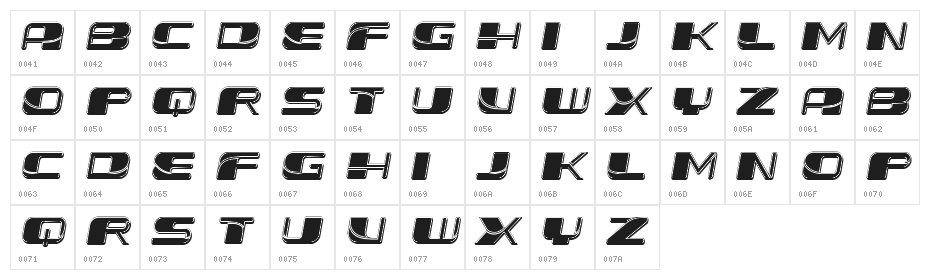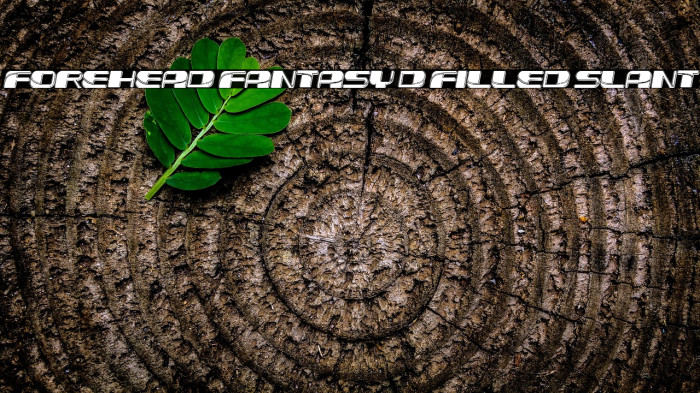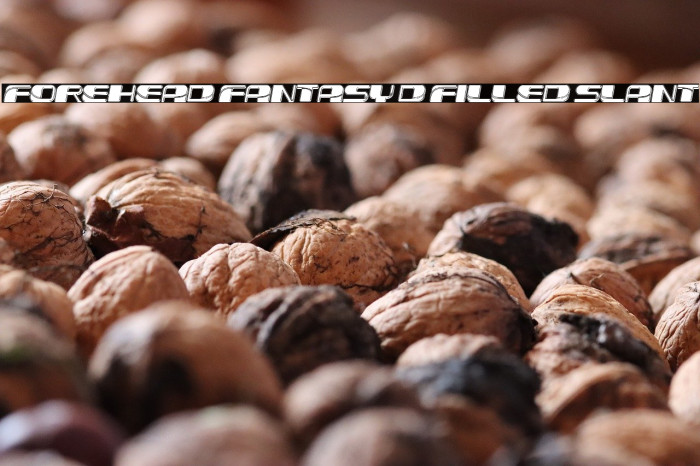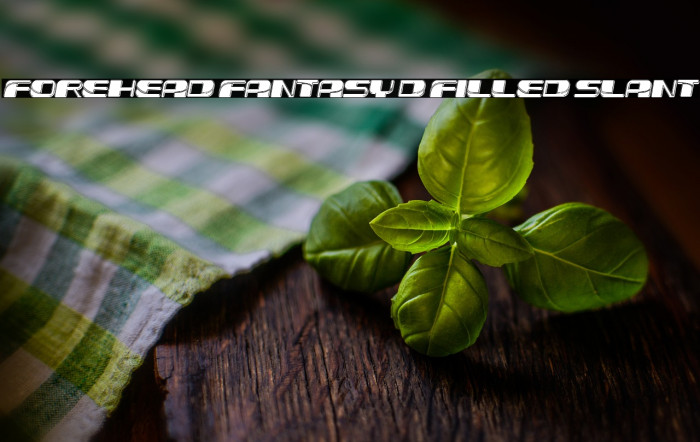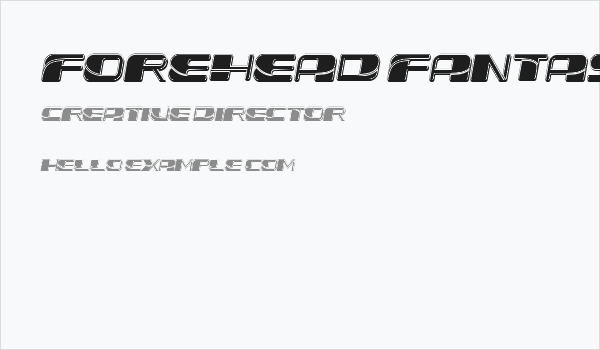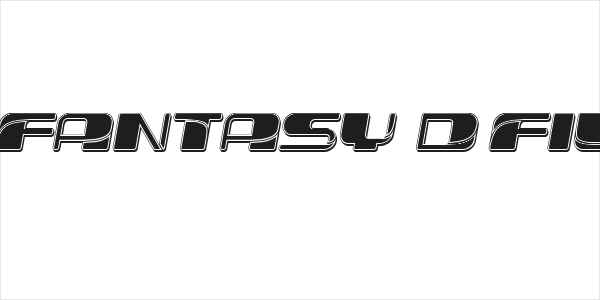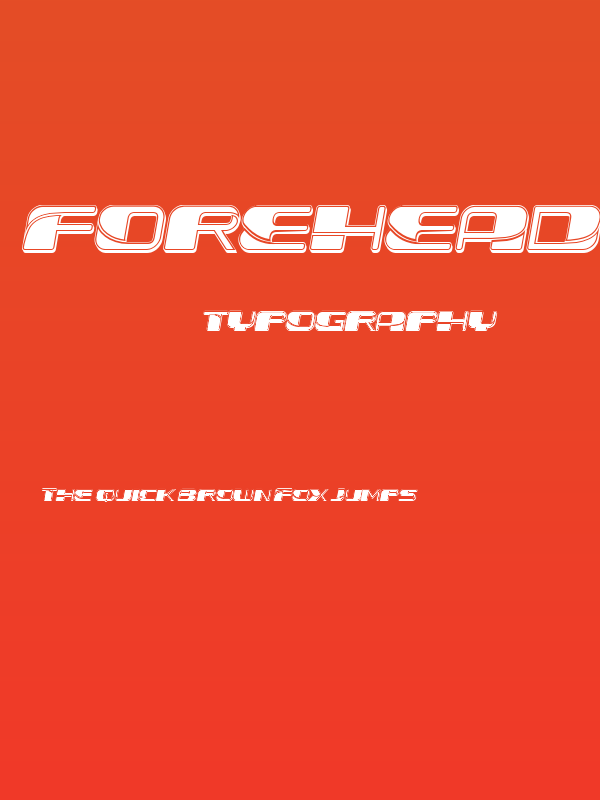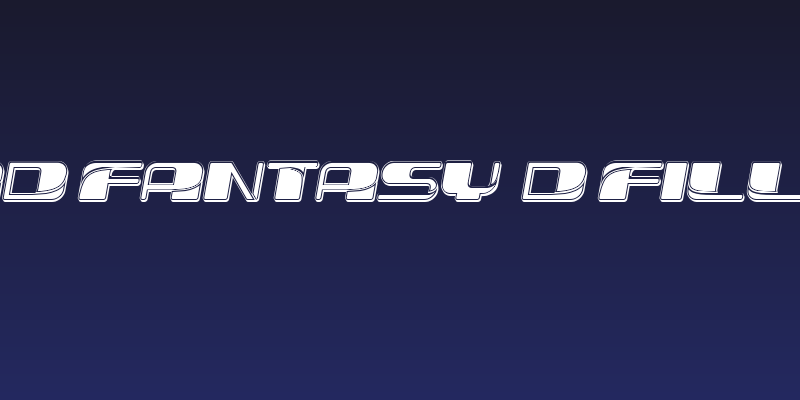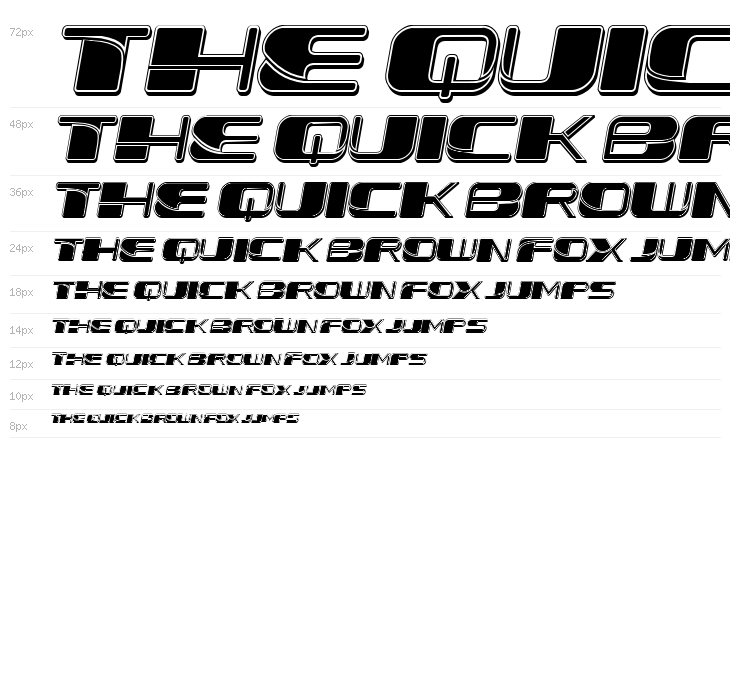
Forehead Fantasy 3D Filled Slant Font
Forehead Fantasy 3D Filled Slant Description
This font features a bold, futuristic design with a 3D effect that gives it a dynamic and modern appearance. The letters are slanted, adding a sense of motion and energy. The filled style enhances its boldness, making it stand out in any design. The geometric shapes and clean lines contribute to its contemporary feel, while the consistent stroke width provides a uniform look. This font is ideal for projects that require a strong visual impact, such as posters, headlines, or branding materials.
| Proposed Projects | Perfect for sci-fi themed designs, technology branding, video game titles, and modern advertising. |